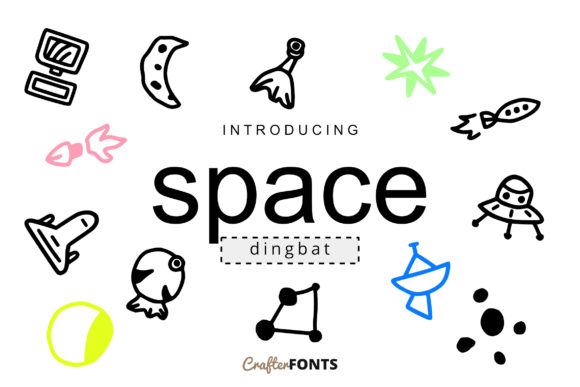
Blast off into the world of limitless creativity with Space Doodle Dingbats, the font that ignites your imagination and takes your designs to new heights. Designed with meticulous attention to detail, this dingbats font bursts with unique and enchanting symbols, icons, and elements that will transform your projects into captivating visual masterpieces.
Immerse yourself in a universe of artistic possibilities with Space Doodle Dingbats. Craft logos that pulsate with personality and infuse your ornaments with a touch of celestial whimsy. Let your creativity soar as you create stunning posters, flyers, and invitations that radiate with cosmic charm.
Feel the spark of innovation as you explore the depths of this extraordinary font. Unleash your inner artist and create illustrations and graphics that shimmer with originality. With Space Doodle Dingbats, the possibilities are boundless, and the only limit is your imagination.
Join the ranks of satisfied designers who have already discovered the magic of Space Doodle Dingbats. Let this font ignite your passion, fuel your creativity, and propel your designs to new stratospheric heights. Experience the cosmic beauty of Space Doodle Dingbats today and let your creativity take flight!